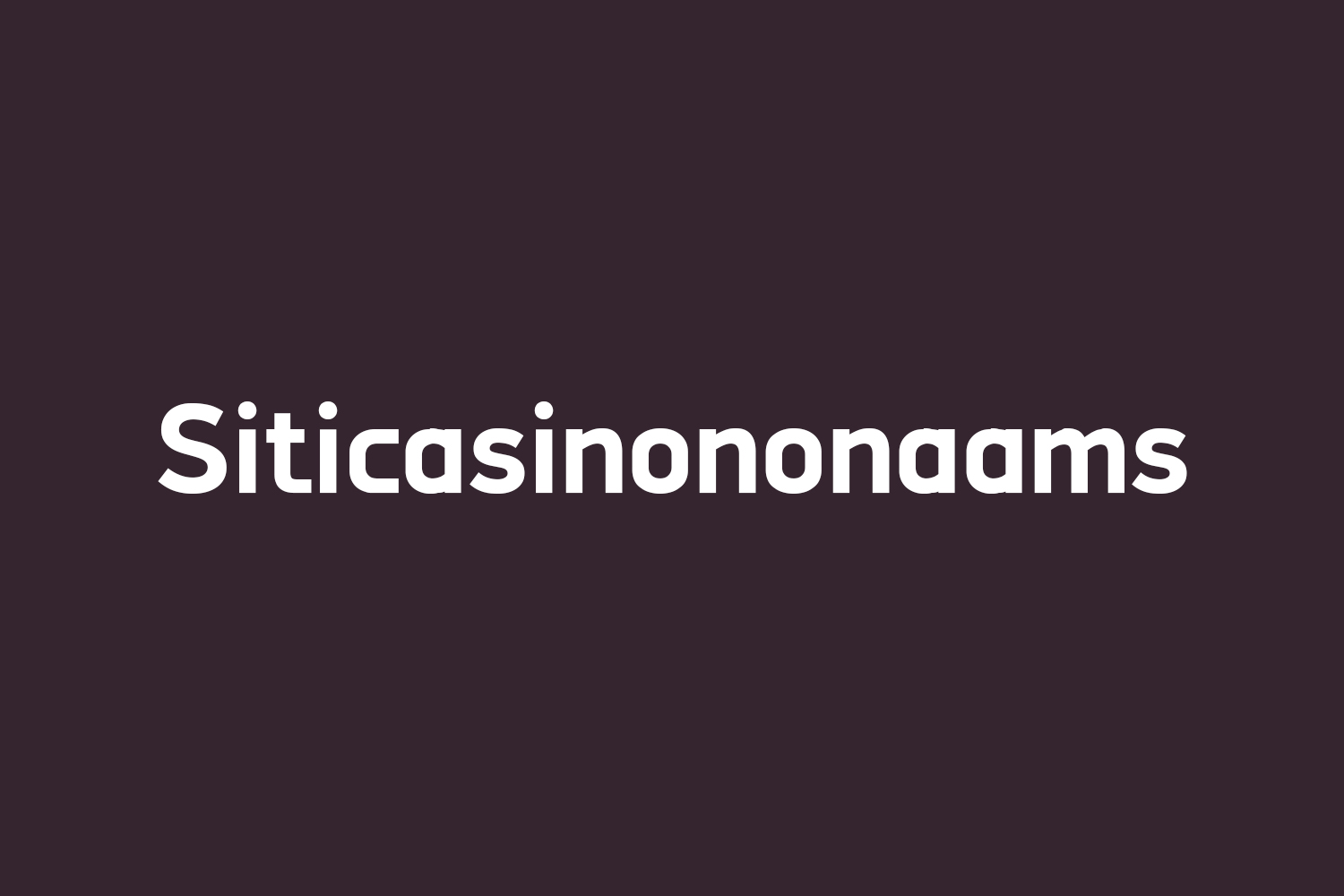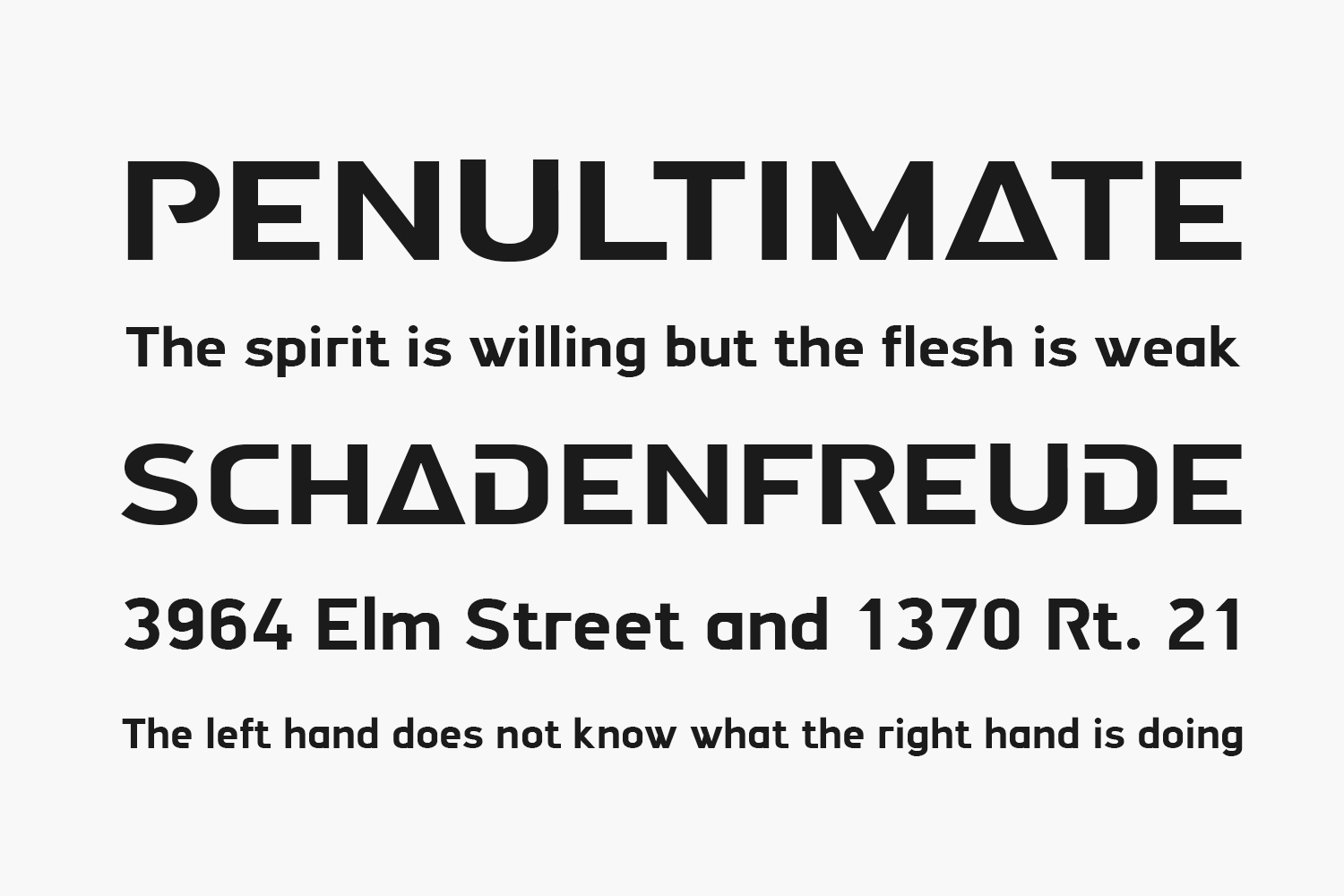
Introducing the Siticasinononaams Free Font, a clean and versatile display font that is perfect for adding a touch of elegance to any design work. This geometric typeface is both bold and powerful, making it ideal for creating an impactful presentation. Created by the Siticasinononaams team with love and care, this font is a typeface designed specifically for any field where creativity and geometry are valued. With its simple yet stylistic design, the Siticasinononaams Font is the perfect choice for designers who want to tell their story in a bold and captivating way. Siticasinononaams Free Font is free for personal use only. Please purchase the full version for commercial use.
Designed by Viola Gardner